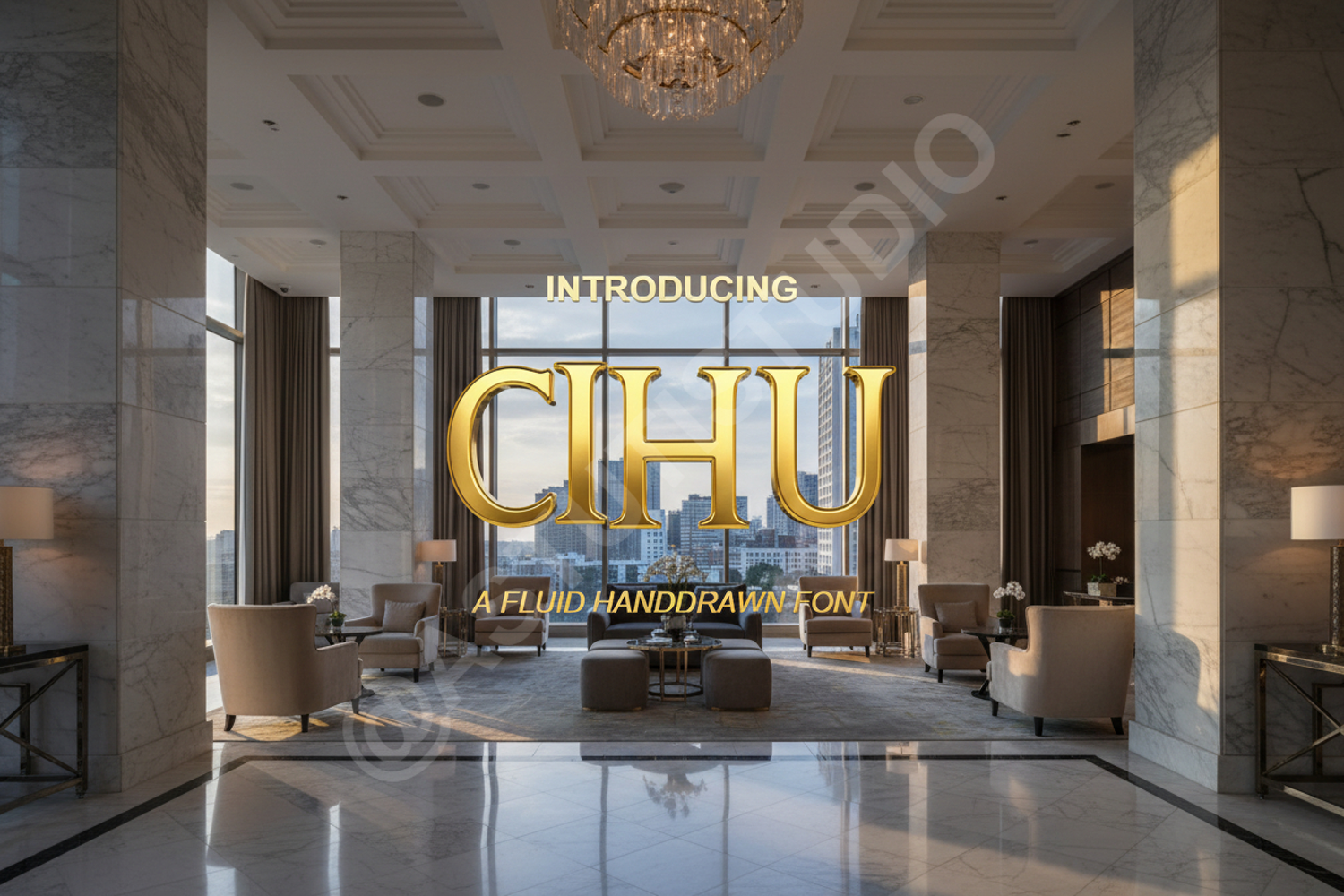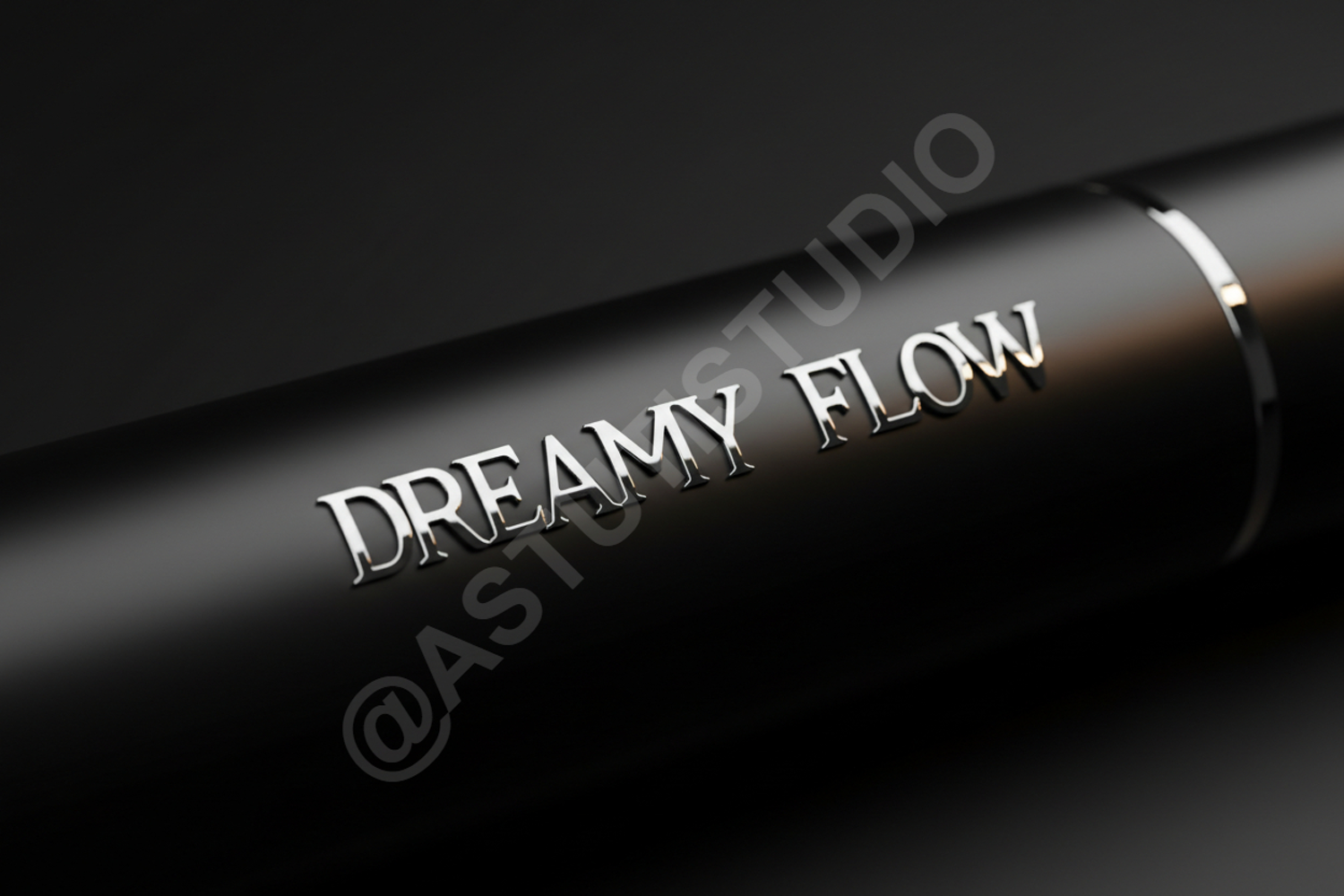
Cihu - Elegant Modern Serif Display Font
Cihu
Cihu is a premium serif typeface that strikes the perfect balance between contemporary flair and timeless elegance. Designed with precision, this font features clean lines and sophisticated curves that make it an ideal choice for designers looking to elevate their creative projects. Whether you are working on a high-end brand identity or a minimalist editorial layout, Cihu provides a polished and professional aesthetic that commands attention.
- Luxury Branding and Logo Design: Create a memorable and prestigious identity.
- Wedding Invitations and Stationery: Add a touch of class to special event materials.
- Editorial and Magazine Layouts: Perfect for sophisticated headlines and pull quotes.
- Social Media Graphics: Enhance your digital presence with high-end typography.
- Product Packaging: Elevate your shelf presence with a clean, modern aesthetic.